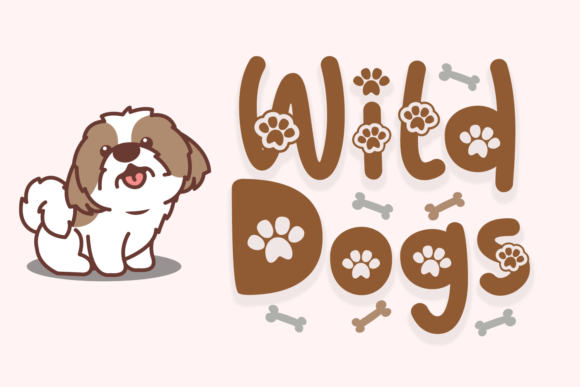
Introducing Wild Dogs Font, the ultimate choice for those seeking the best font type for kid websites! Created by the talented designer Wankriss, this decorative font is a perfect blend of elegance and playfulness. With its unique tiny paw prints, Wild Dogs Font captures the hearts of both young and old, adding a touch of whimsy to any text.
Immerse yourself in the adorable world of Wild Dogs Font, where each letter is meticulously crafted with lovingly designed paw prints. This attention to detail creates a truly irresistible and cute aesthetic that will captivate your audience. Whether you're working on projects related to pets, animal-themed events, children's materials, or simply desire to infuse your design with a sprinkle of cuteness, Wild Dogs Font is your go-to choice.
Unlock your creativity and let your words leave a trail of paws with this charming typeface. Watch as your content comes to life, enveloped in the playful spirit of our furry friends. Wild Dogs Font is more than just a font; it's an experience that evokes emotions and sparks joy in all who encounter it.